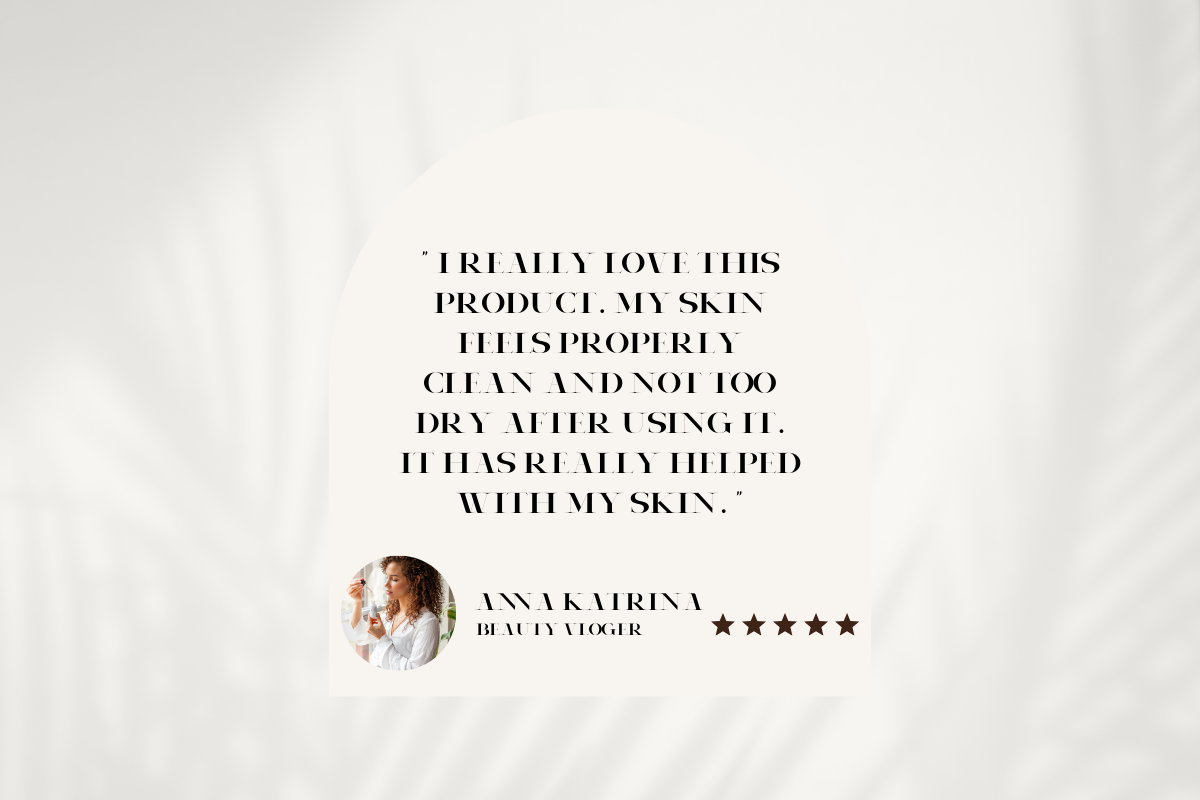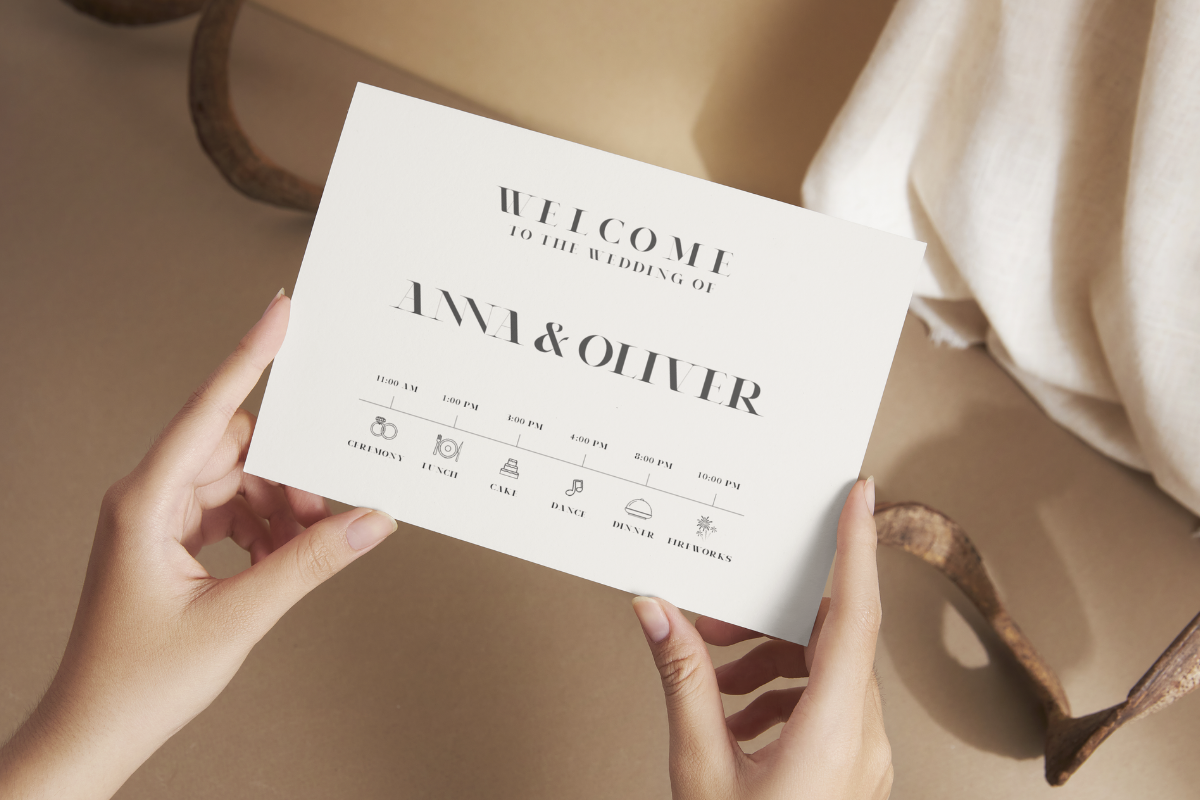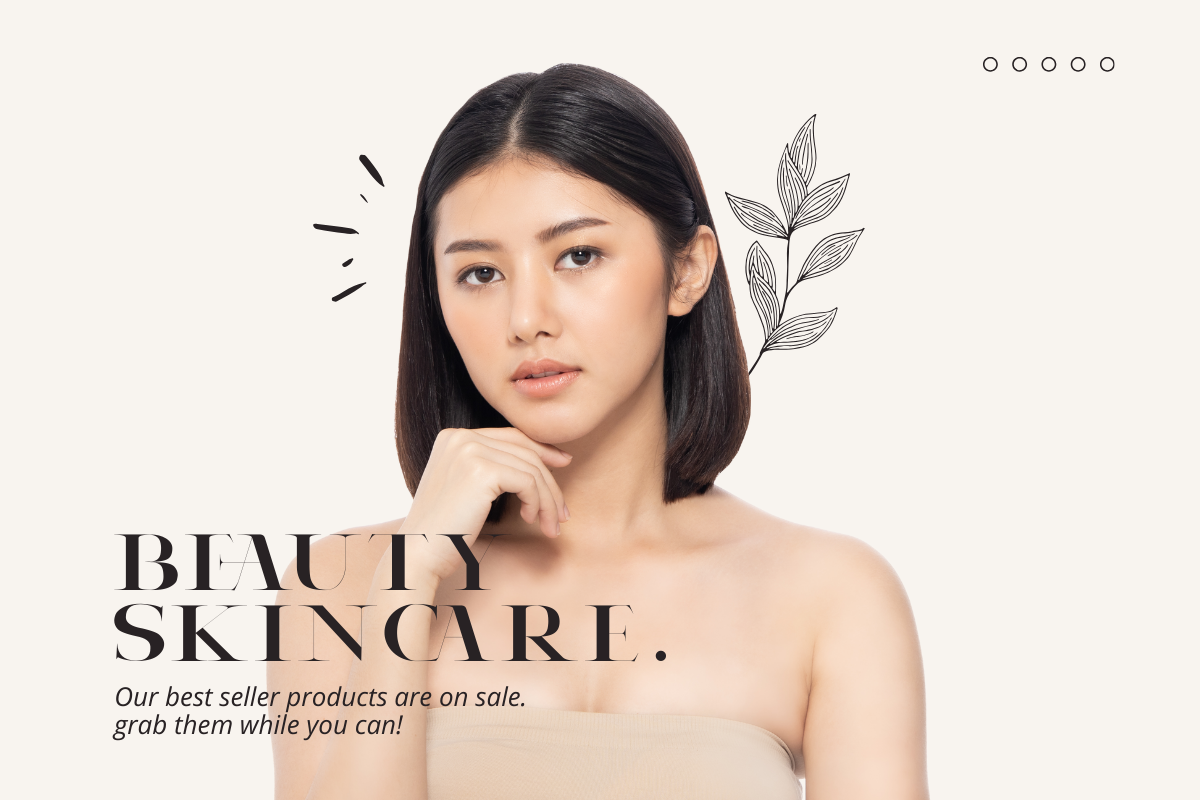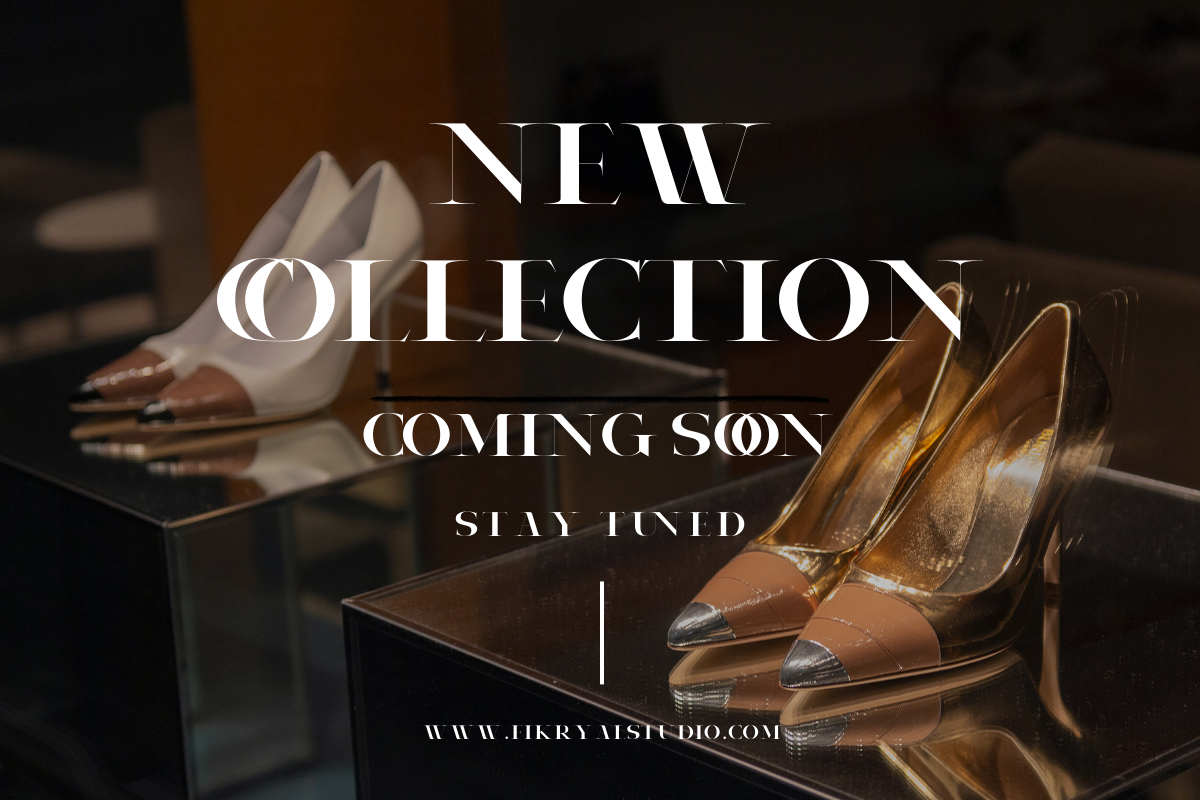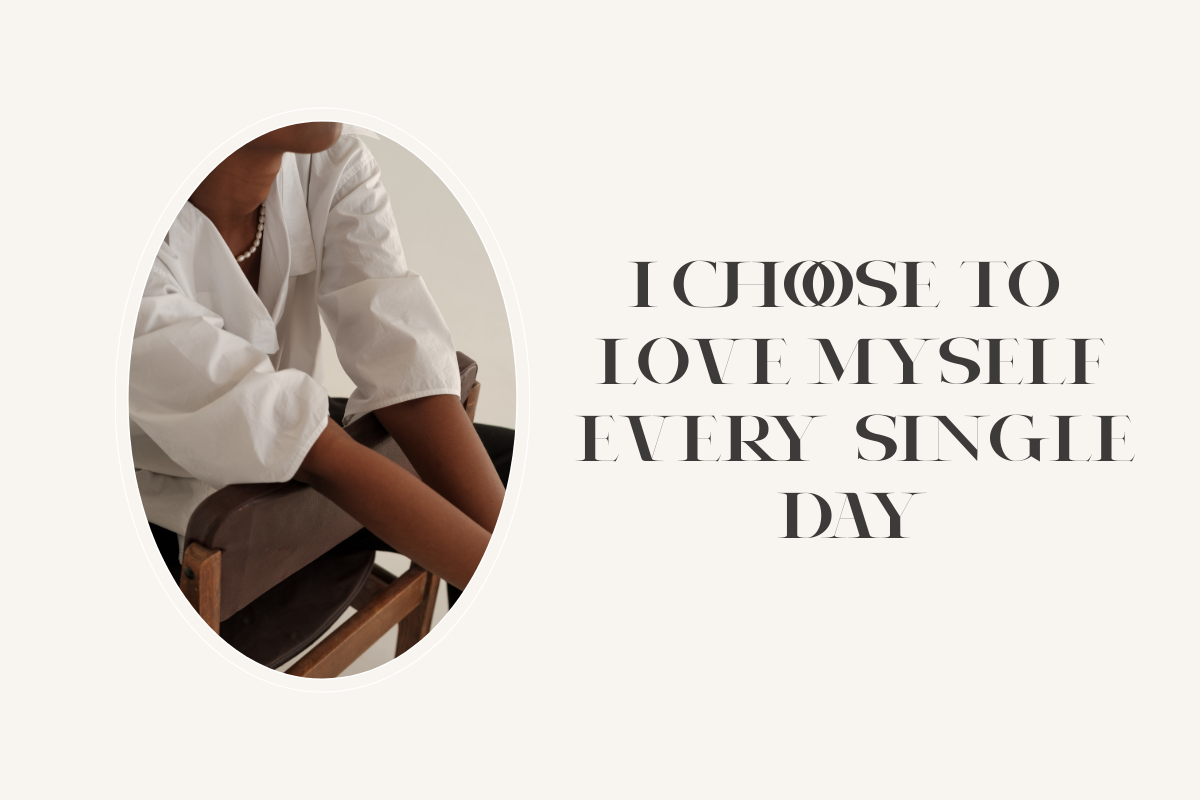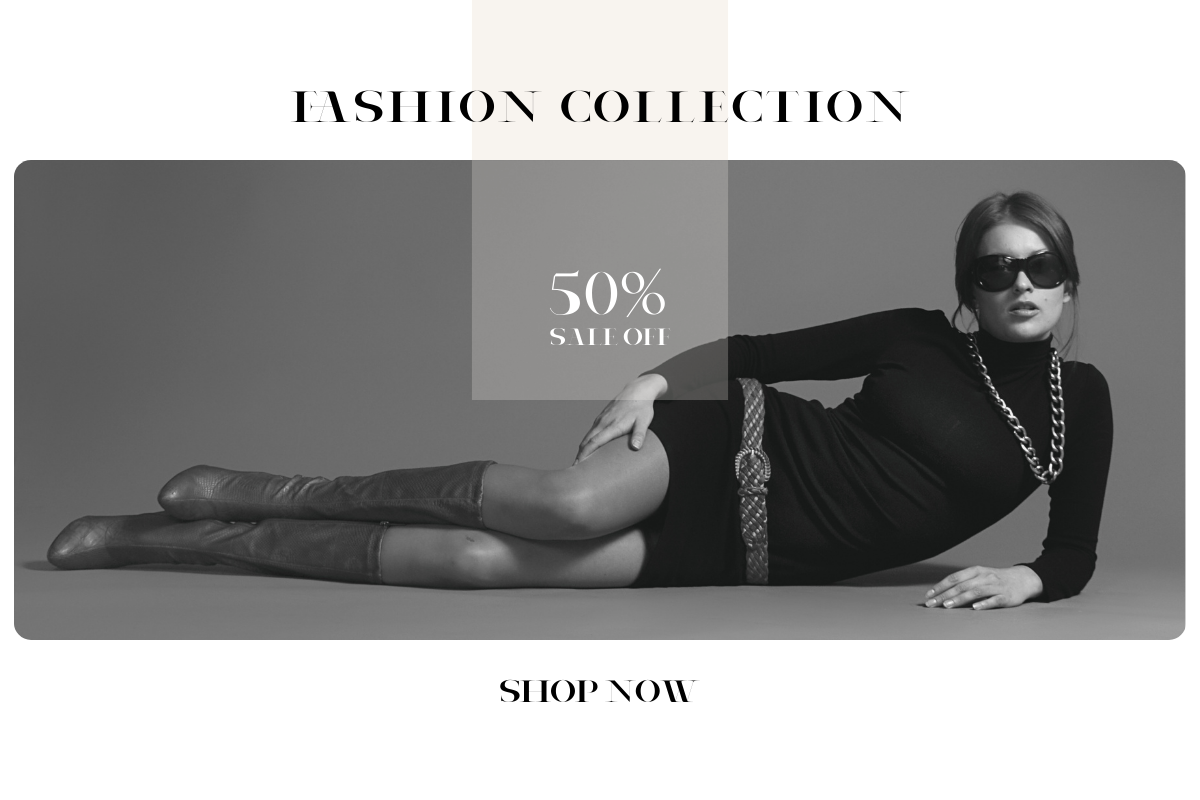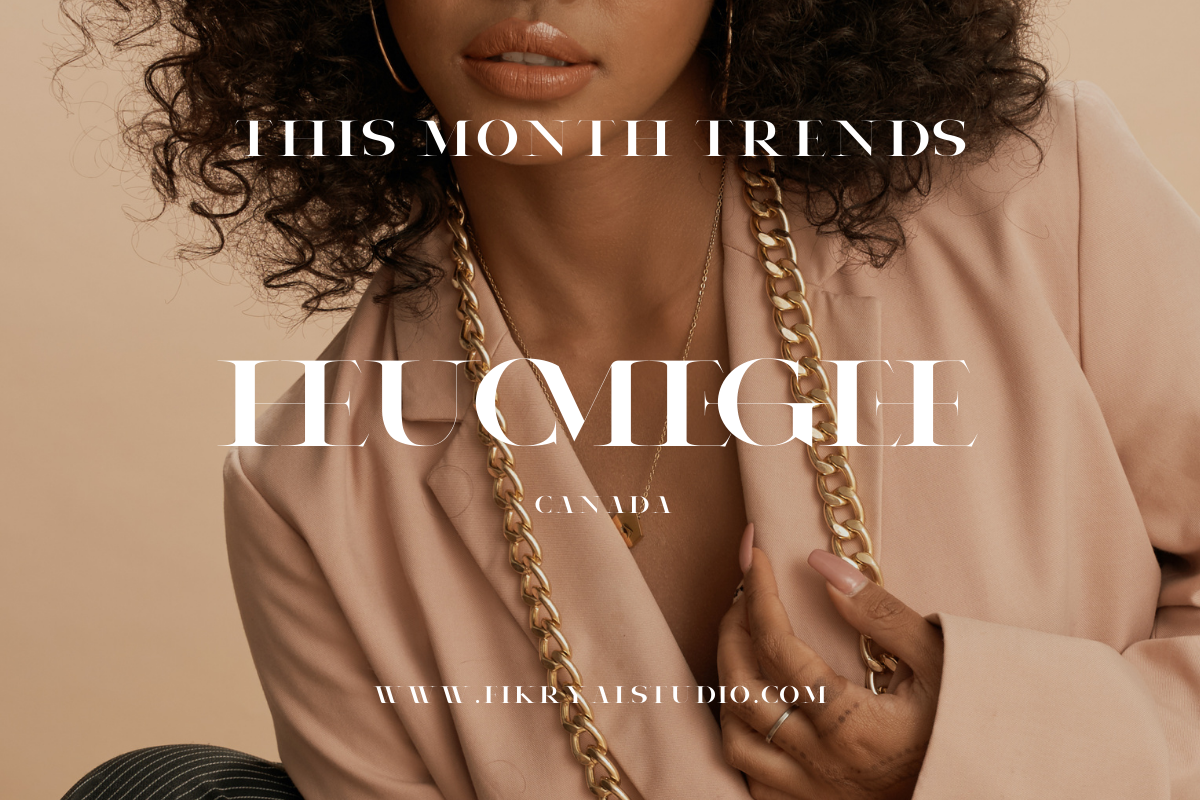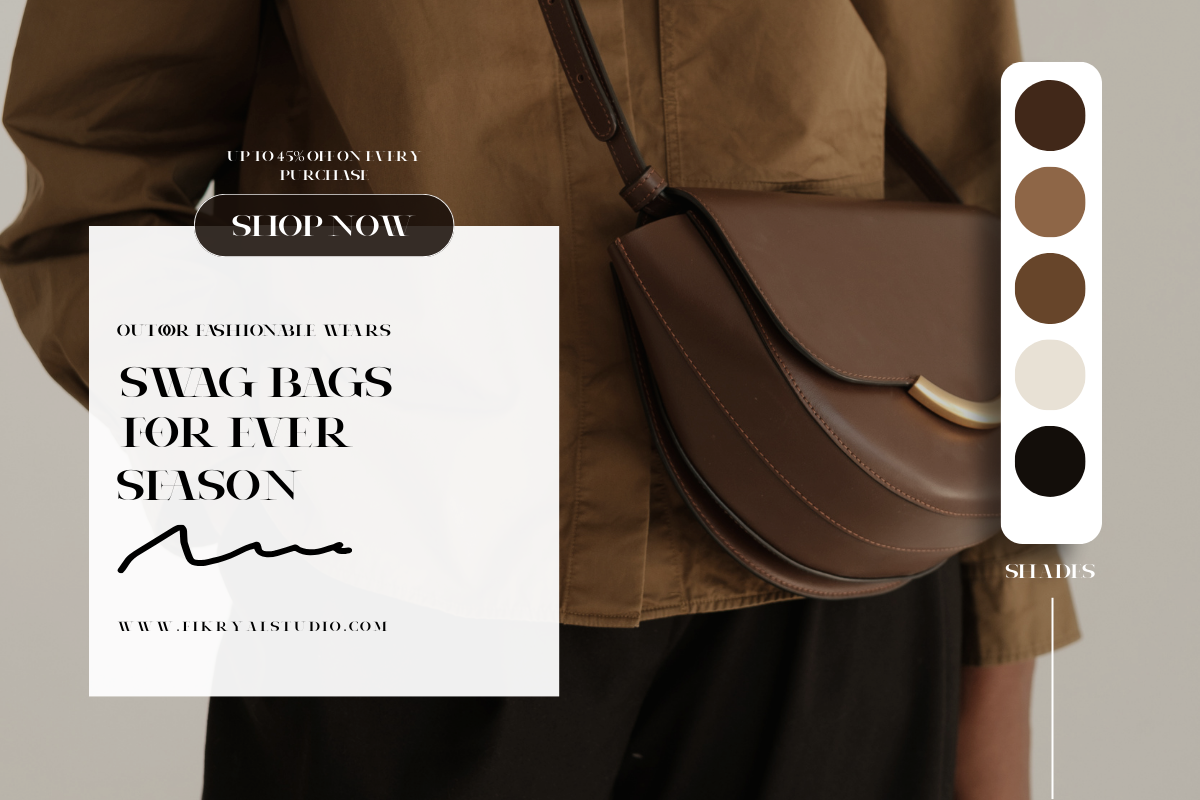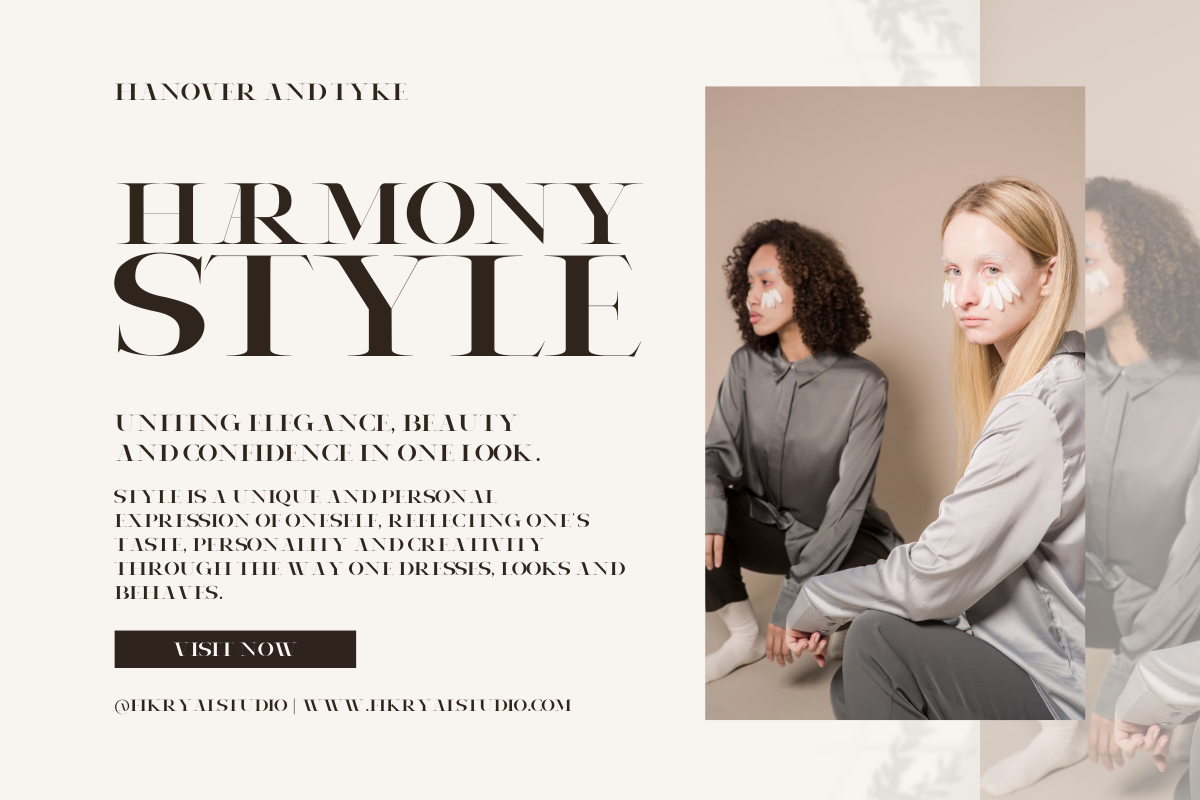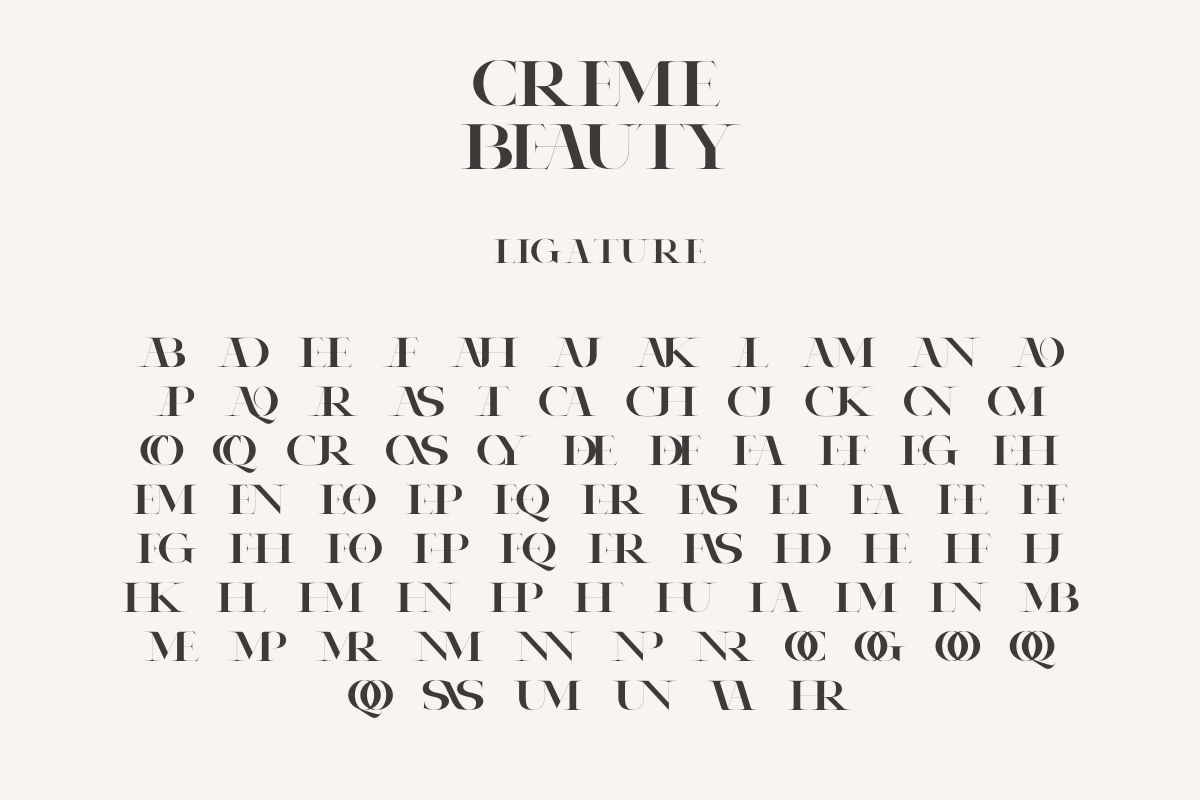
Creme Beauty – Elegant Serif
Creme Beauty is an elegant serif font that exudes unparalleled luxury. Meticulously crafted, each letter radiates captivating sophistication, making it ideal for design projects that prioritize a luxurious and exclusive aesthetic.
With its all-capitals design, Creme Beauty delivers a strong and refined impression, perfect for headlines, titles, or other design elements requiring a bold emphasis.
Moreover, its elegant ligature features add a special touch to every letter combination, ensuring your text appears seamlessly sophisticated and structured.